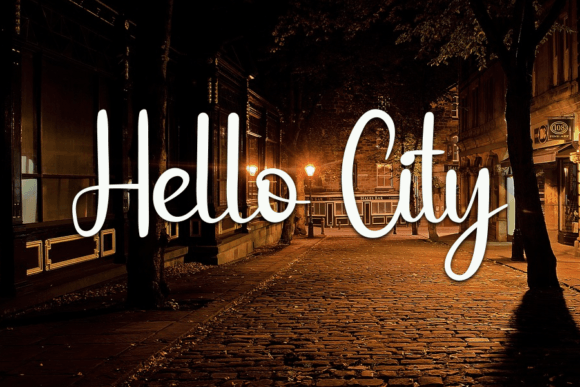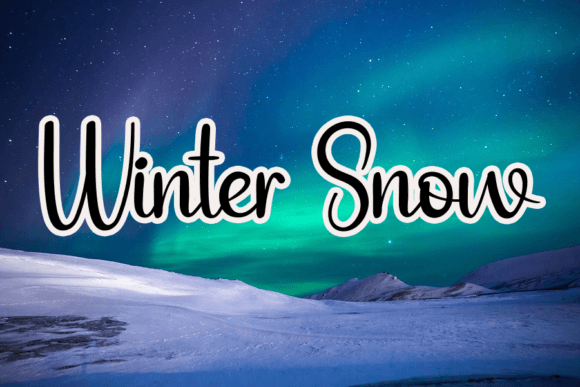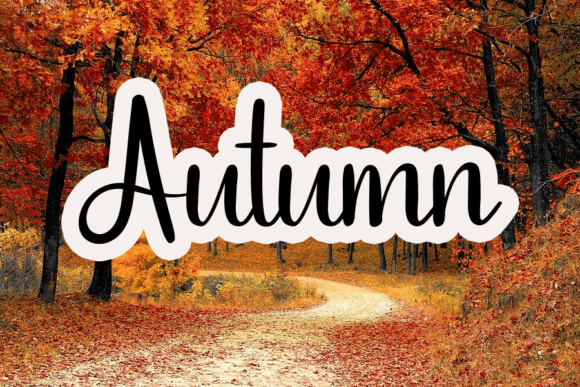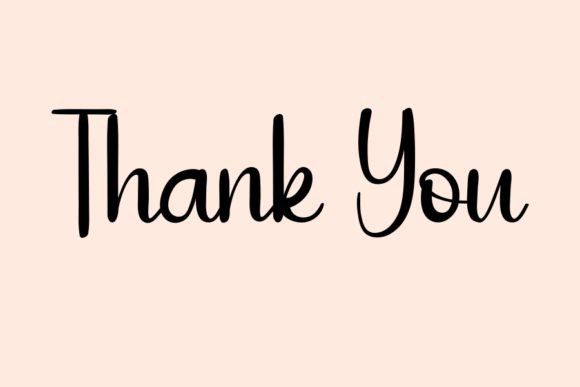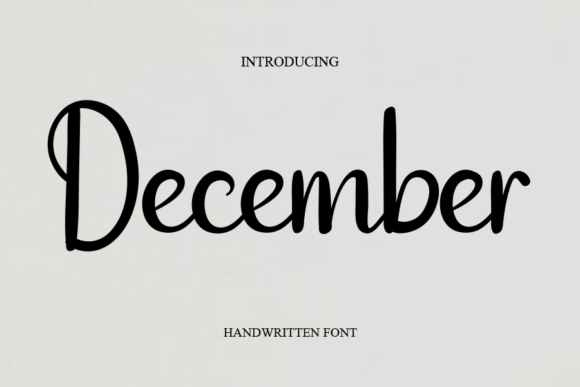
Introducing December Font: A Sweet and Beautiful Handwritten Delight
Are you looking for a font that adds a touch of warmth and coziness to your design projects? Look no further than December Font, a sweet and beautiful handwritten font that is sure to capture the hearts of designers and crafters alike. Featuring characters that dance along the baseline, this font is the perfect addition to any design project that requires a personal and intimate feel.
What Makes December Font So Special?
December Font is a unique and charming handwritten font that boasts a range of characteristics that set it apart from other fonts. Here are just a few reasons why designers and crafters are falling in love with this beautiful font:
- Handwritten with love: December Font is a carefully crafted handwritten font that exudes a sense of warmth and personality. Each character is meticulously designed to create a sense of movement and fluidity, making it perfect for designs that require a personal touch.
- Dancing characters: One of the standout features of December Font is its dancing characters. The letters seem to dance along the baseline, creating a sense of whimsy and playfulness that is sure to capture the attention of your audience.
- Coziness guaranteed: December Font has a way of adding a cozy accent to any design project. Whether you’re working on a Christmas card, a holiday-themed website, or a craft project, this font is sure to bring a sense of warmth and comfort to your design.
December Font is a versatile font that is perfect for a range of design projects. Here are just a few ways that designers and crafters can use this beautiful font:
- Holiday projects: December Font is perfect for holiday-themed projects, including Christmas cards, gift tags, and holiday-themed websites.
- Craft projects: If you’re a crafter, December Font is a great addition to your design toolkit. Use it to create beautiful journal pages, scrapbook layouts, and handmade cards.
- Branding and packaging: December Font can also be used for branding and packaging projects. Its unique and charming design makes it perfect for businesses that want to stand out from the crowd.
Tips for Using December Font
Here are a few tips for using December Font in your design projects:
- Pair it with a bold font: December Font is a delicate font, so it’s best to pair it with a bold font to create contrast. This will help your design stand out and create visual interest.
- Use it for headings and titles: December Font is perfect for headings and titles, where its unique and charming design can really shine.
- Experiment with colors: December Font looks great in a range of colors, from rich and bold to soft and pastel. Experiment with different colors to find the perfect look for your design.
December Font is a sweet and beautiful handwritten font that is sure to capture the hearts of designers and crafters alike. Its unique and charming design makes it perfect for a range of design projects, from holiday-themed designs to craft projects and branding and packaging. With its dancing characters and cozy accent, December Font is the perfect addition to any design toolkit.